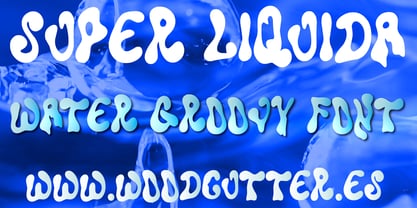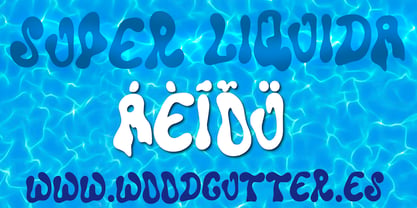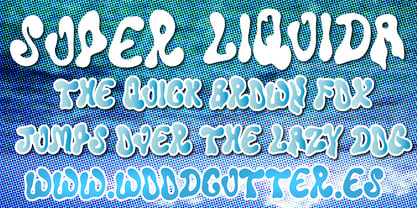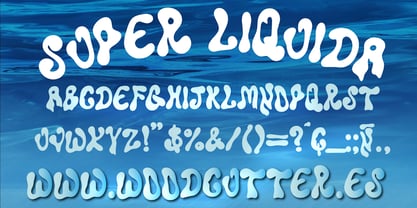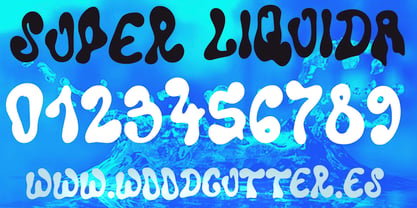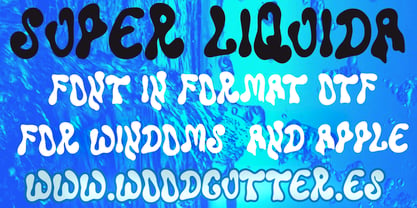
Super Liquida
by Woodcutter
The Super Liquida Font Family was designed by Jordi Manero and published by Woodcutter. Super Liquida contains 1 styles. More about this family
SUPER LIQUIDA is an uppercase typeface with accents that feels alive, in constant transformation. Its letters are highly deformed, as if made of water or a viscous fluid. Each character bends, stretches, or twists, giving the impression of continuous movement, as if floating in calm water or melting in a liquid storm. The aesthetic is organic, fluid, and experimental, ideal for designs that aim to break rigidity and explore visual play.
SUPER LIQUIDA is perfect for contemporary design projects, electronic music covers, psychedelic posters, alternative fashion branding, or any visual piece that needs a truly unique font. Its visually unstable nature makes it a powerful tool to express dynamism, energy, originality, and a touch of visual madness.
This font is impossible to ignore: it grabs the eye, unsettles, and fascinates. It’s a graphic experience that dissolves traditional boundaries of typography. With SUPER LIQUIDA, letters stop being static and become living, liquid, radically different forms.